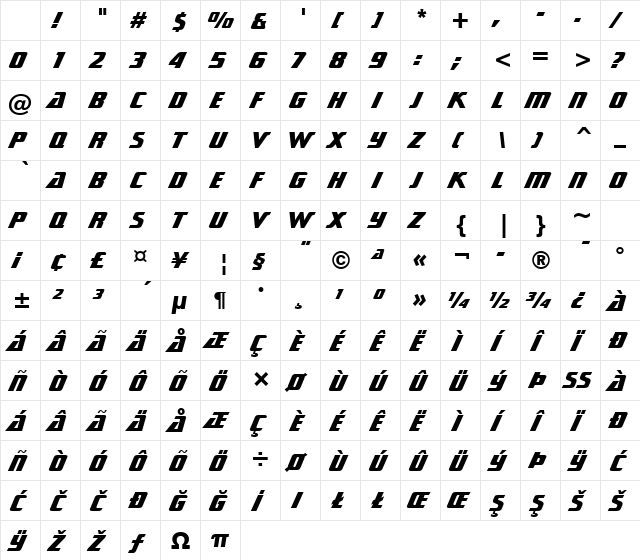
SonicCutThru Hv BT Heavy
SonicCutThru Hv BT Family
Complete SonicCutThru Hv BT Heavy glyph index. Displaying only characters natively supported by SonicCutThru Hv BT Heavy font.
Design Context for SonicCutThru Hv BT
SonicCutThru Hv BT is a composed and adaptable typeface that performs quietly and consistently across a wide range of design contexts.